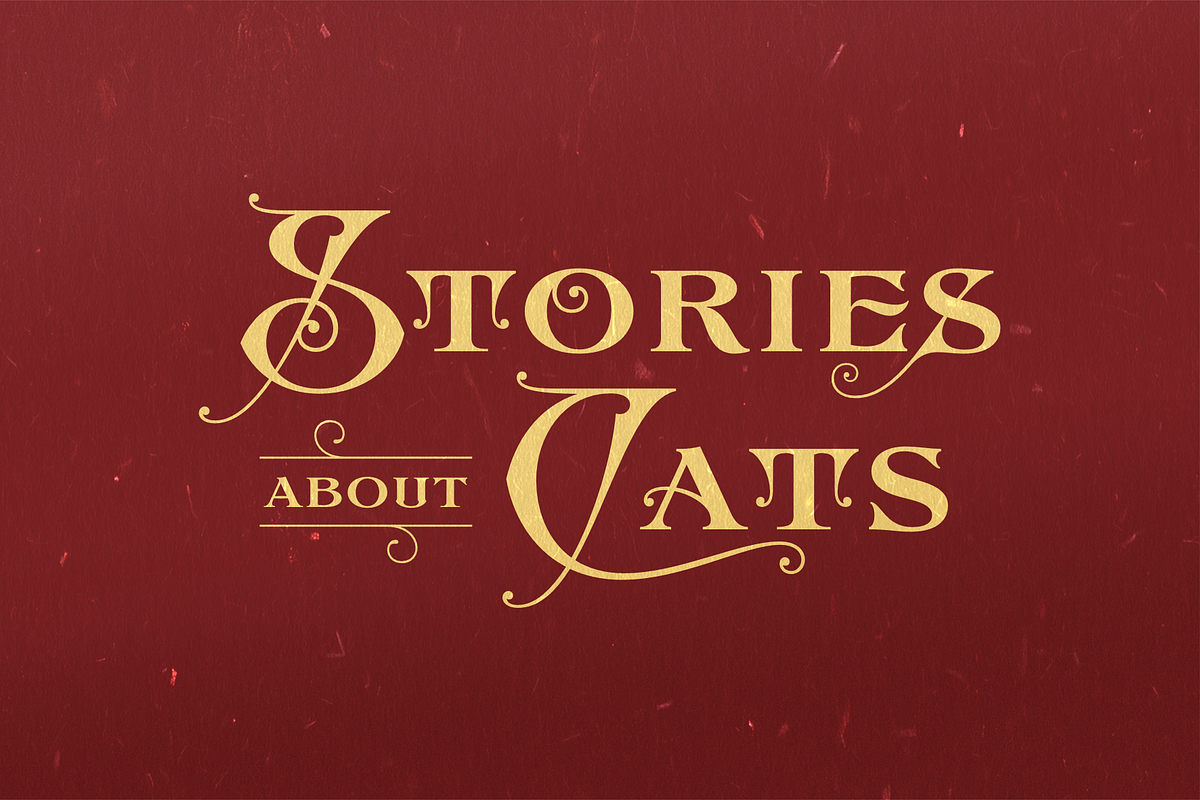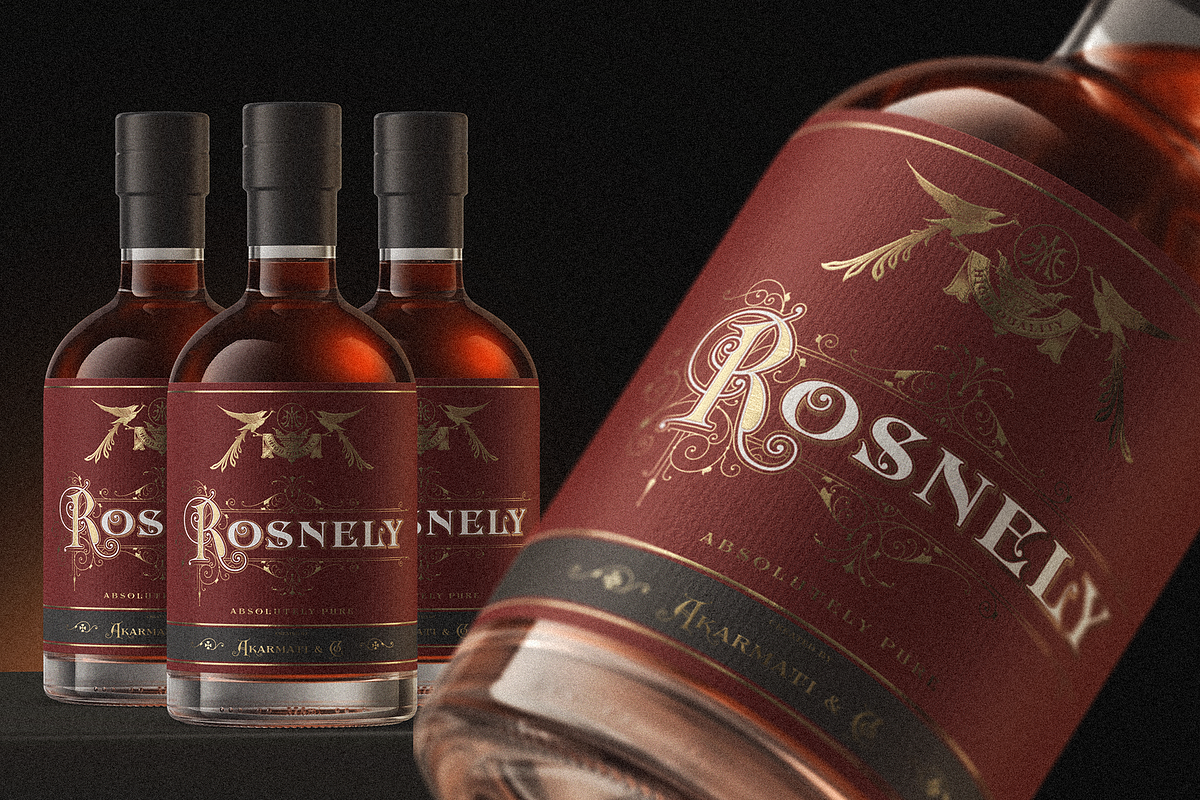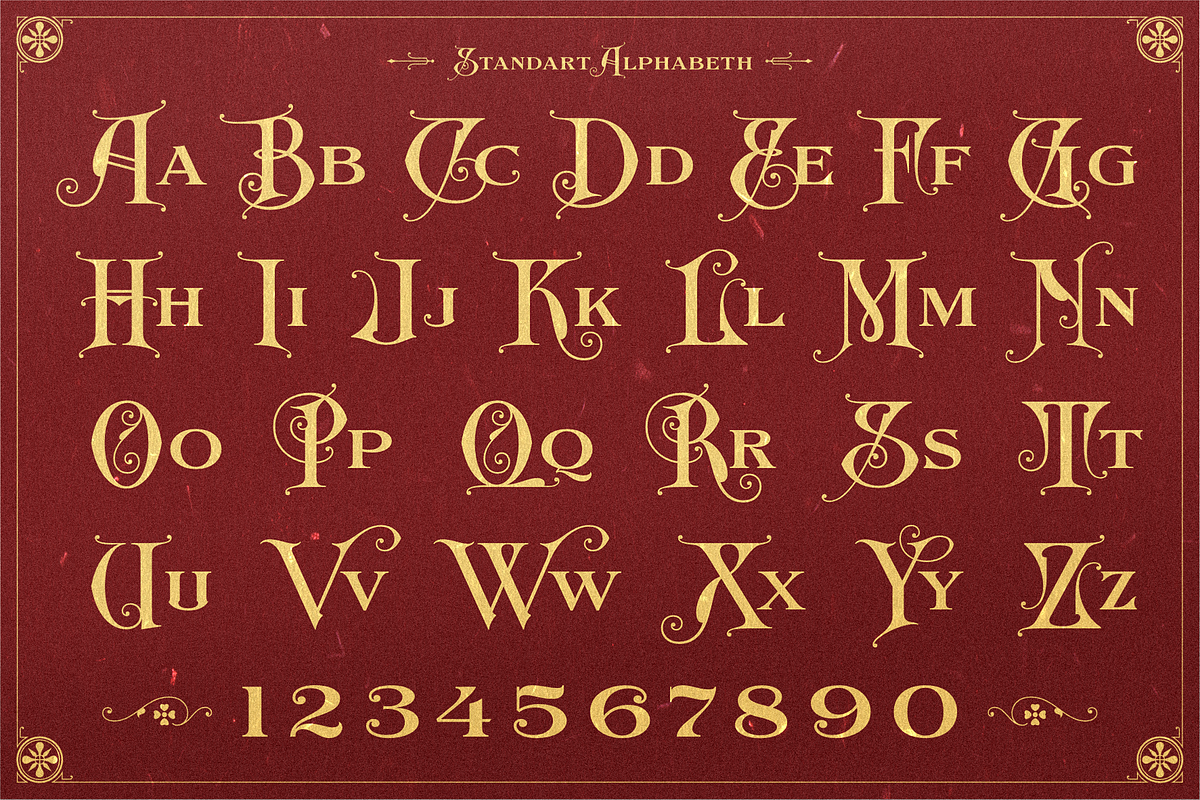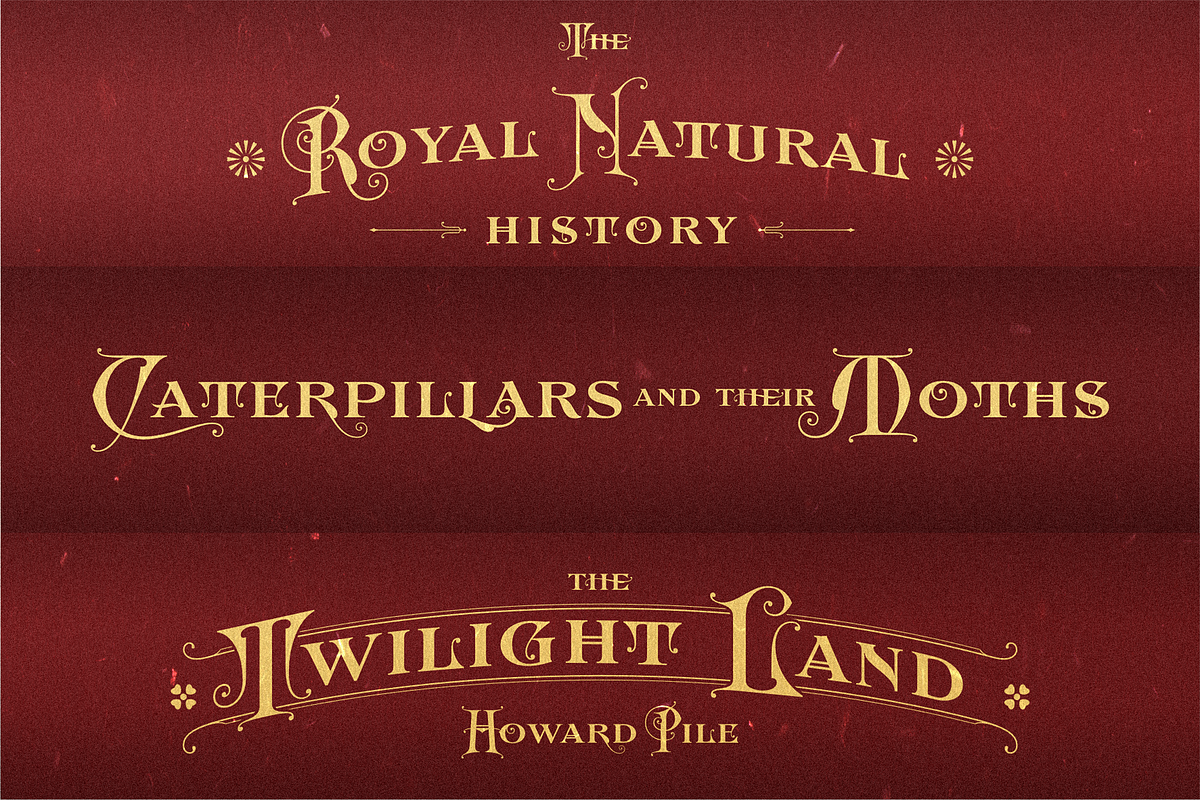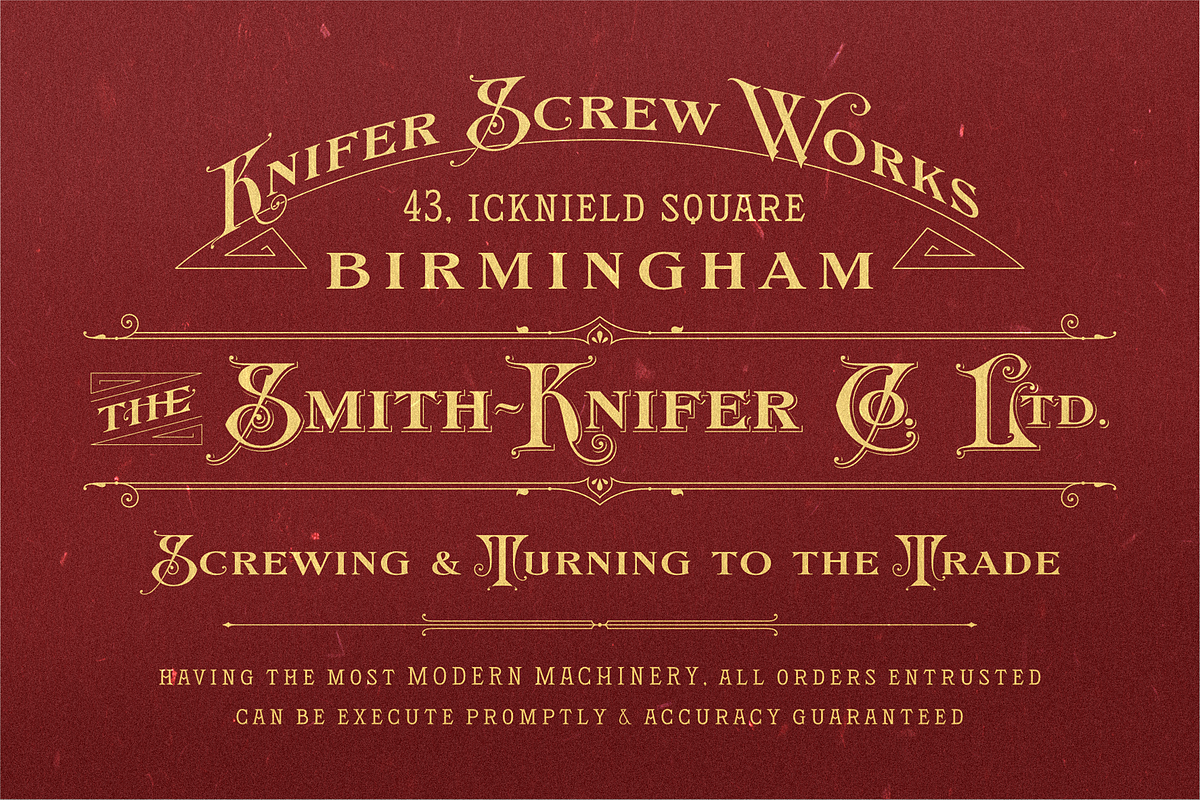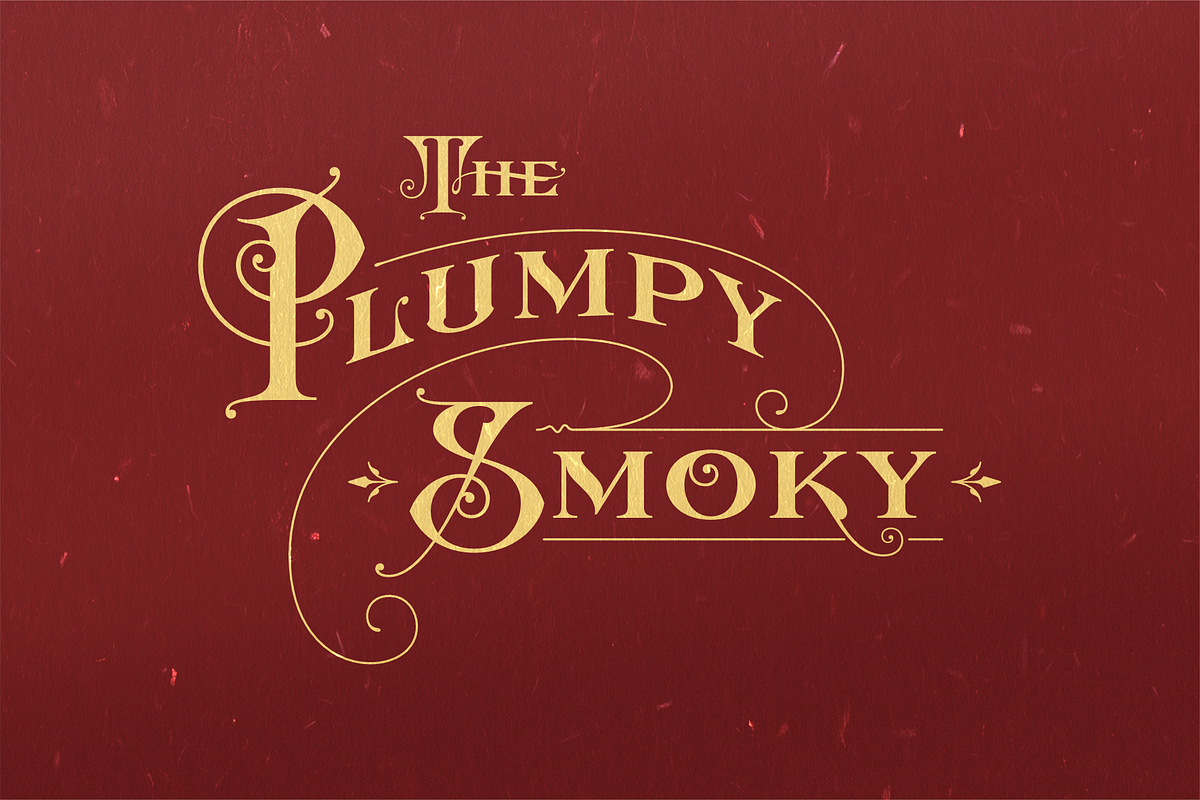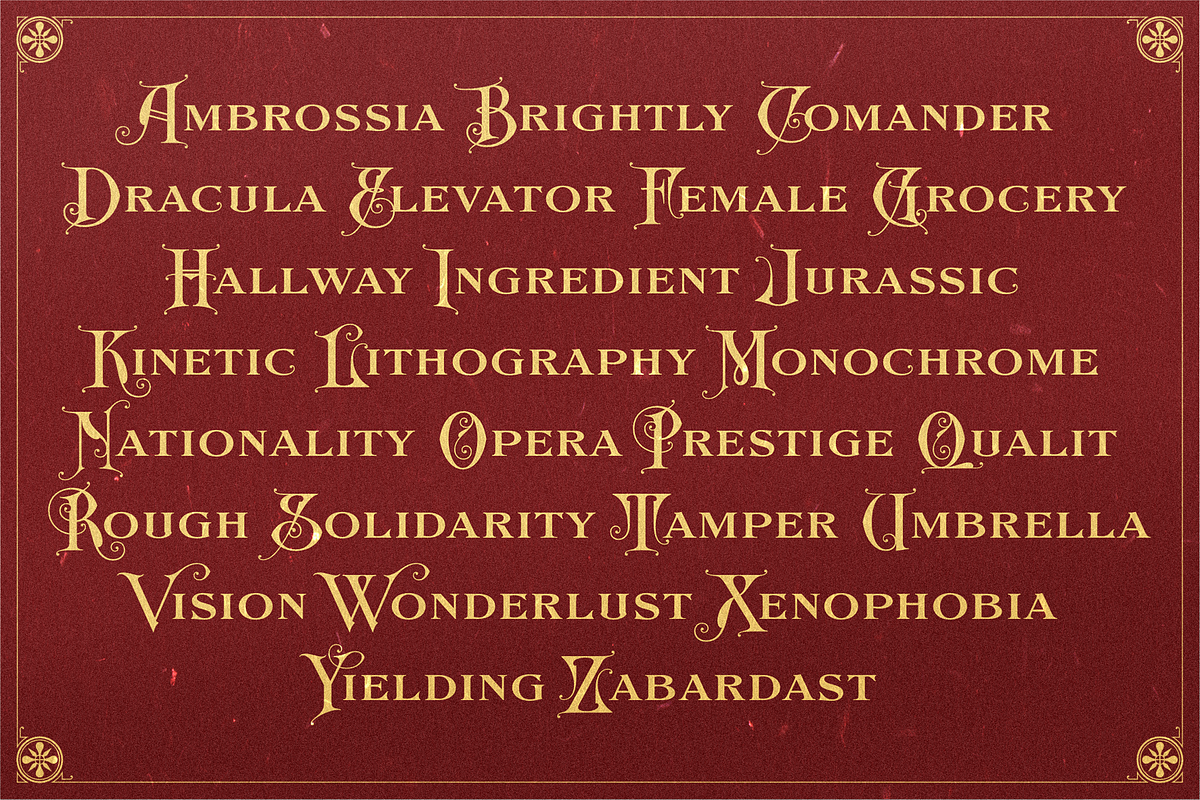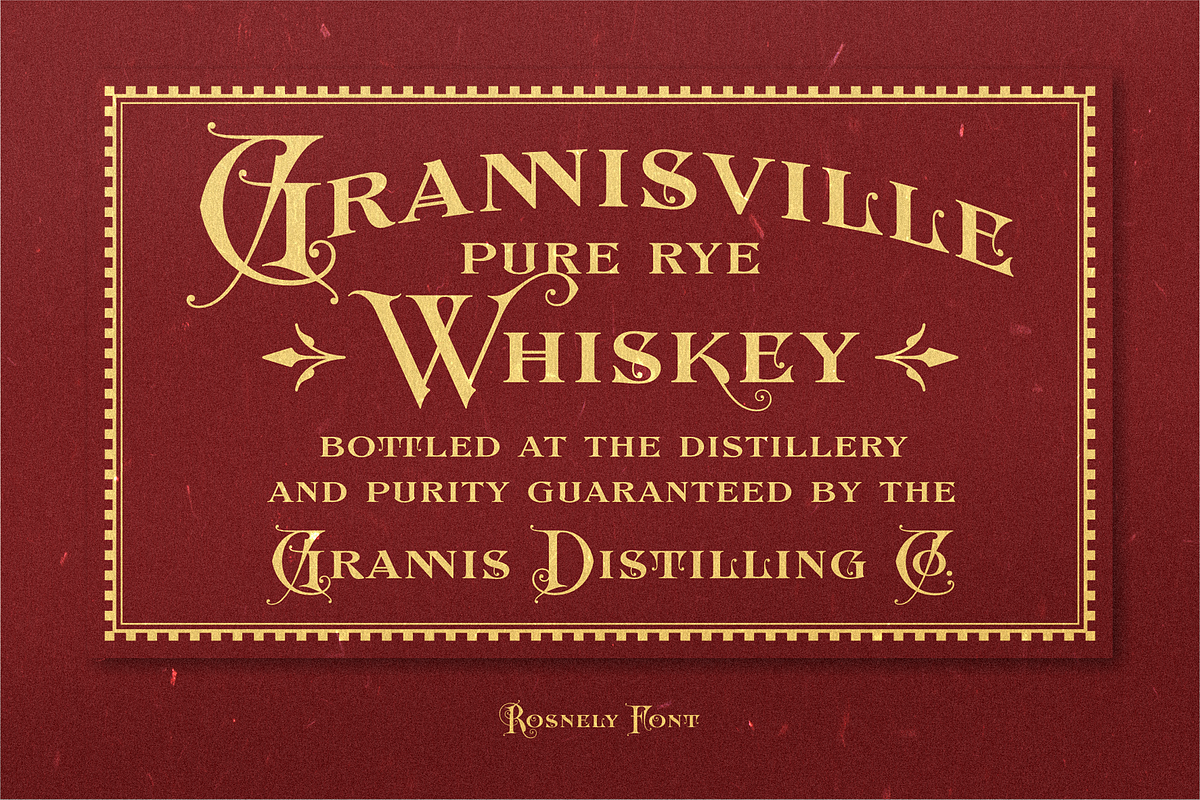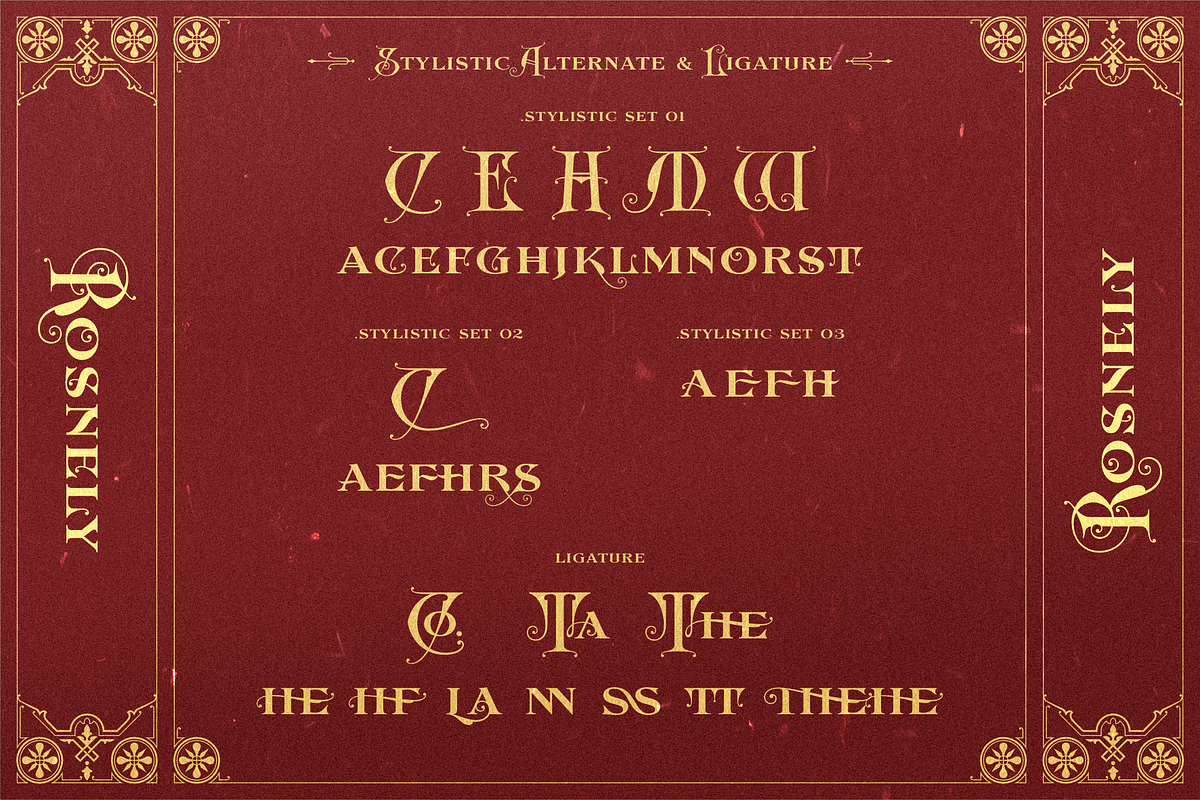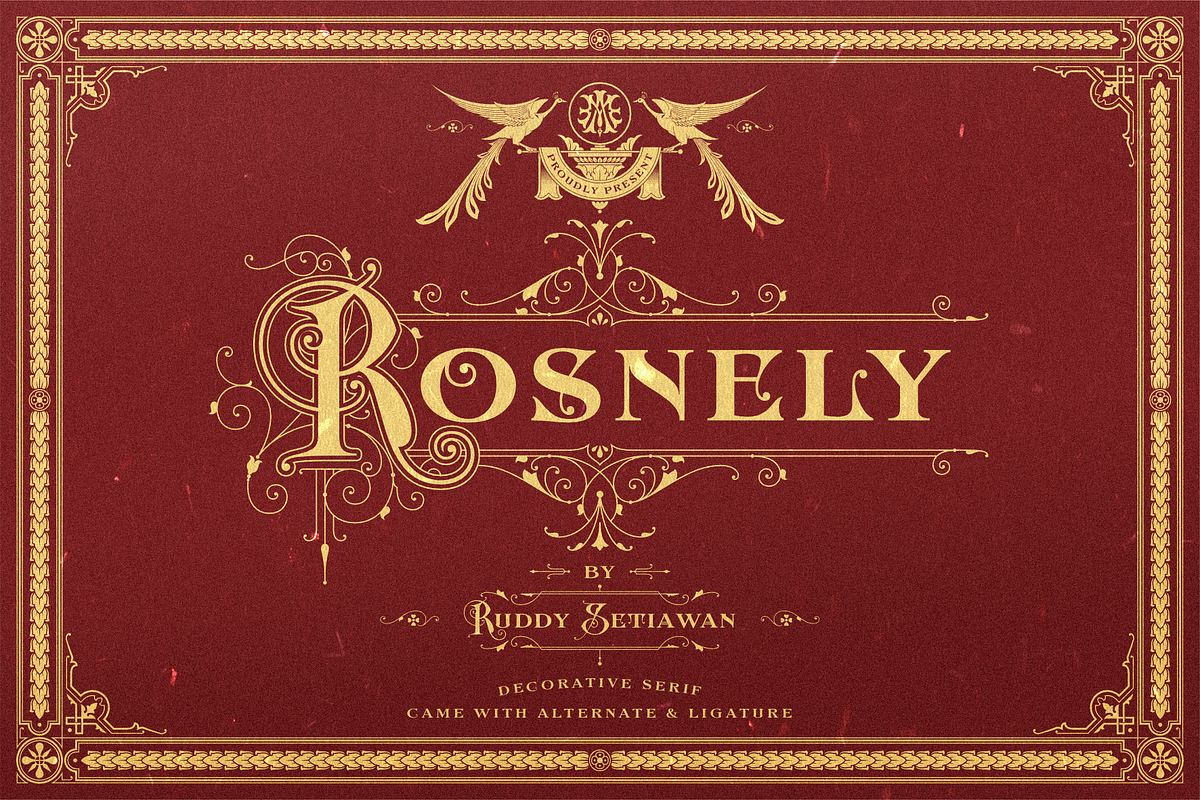
Rosnely is decorative lombardic letterforms. Inspired by the lettering on an early 20th century advertisement book. providing aesthetic value by making contrast uppercase and lowercase but complement each other make Rosnely luxurious and elegant.
This font is suitable for headlines, book titles, movie titles, dropcaps, etc.
Comes with several alternates and ligatures Multilingual support